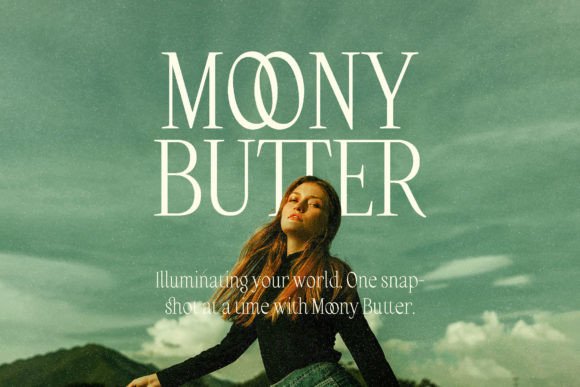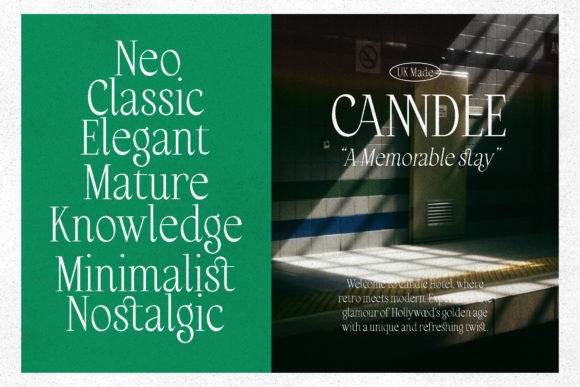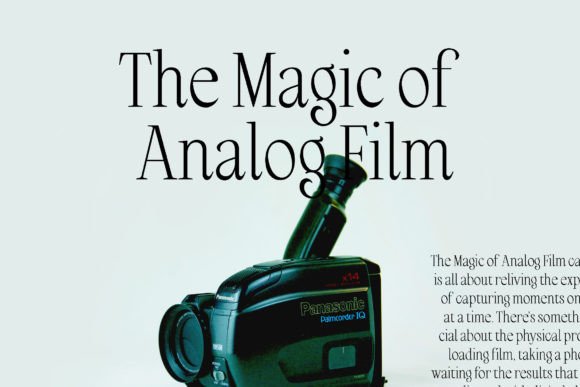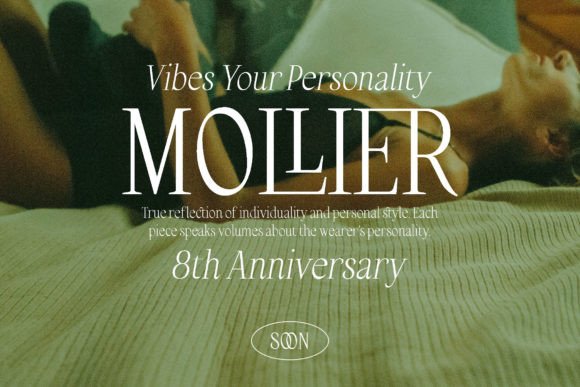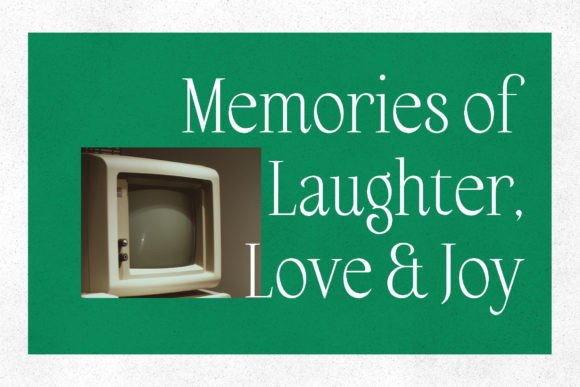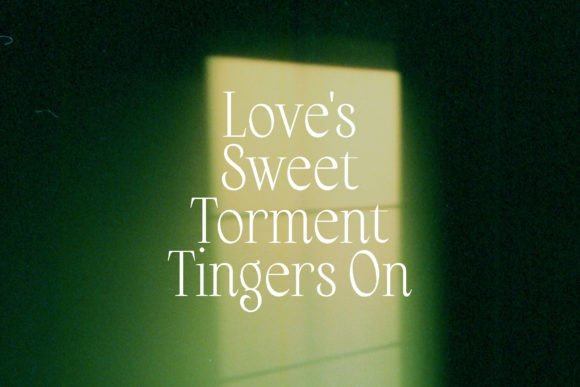
Introducing Asel Links Font: Elevate Your Designs with Elegance
I still remember the frustration of working on a branding project, only to hit a roadblock when searching for the perfect font. My client wanted something that exuded elegance, yet had a modern twist. After hours of scouring the internet, I stumbled upon Asel Links font, and it was love at first sight! With its unique ligatures and versatile display style, I knew I had found the perfect fit. In this article, I’ll share my experience with Asel Links, its features, and how to make the most of this stunning font.
What Makes Asel Links Special?
Asel Links is a display font that brings a touch of sophistication to any design. Its contemporary take on a classic style makes it perfect for various projects, such as branding, headlines, and editorial design. The font’s extensive multilingual support also makes it easy to use for any language, making it a great choice for global brands or multilingual publications.
• ✨ Unique ligatures that add an eye-catching element to any design
• ✅ Extensive multilingual support for global use
• 🌈 Beautifully crafted with a contemporary twist on a classic style
• ⚡️ Easy to read and visually appealing, even at larger font sizes
• 🤔 Limited suitability for body text due to its display nature
• ⚠️ May require additional kerning adjustments for optimal results
The Story Behind Asel Links
Asel Links was designed with the goal of creating a modern, elegant font that would add a touch of sophistication to any design. Inspired by classic typography, the designer aimed to craft a font that would be both versatile and eye-catching. The result is a stunning display font that is perfect for a wide range of design applications.
What is Asel Links font best suited for? Asel Links is best suited for display purposes, such as branding, headlines, and editorial design.
Is Asel Links suitable for body text? No, Asel Links is not suitable for body text due to its display nature. It’s best used for headlines and titles.
Does Asel Links support multilingual languages? Yes, Asel Links has extensive multilingual support, making it easy to use for any language.
With Asel Links, your designs will never look the same again. Its unique ligatures, elegant style, and extensive multilingual support make it the perfect choice for designers, crafters, and creative hobbyists looking to elevate their designs.